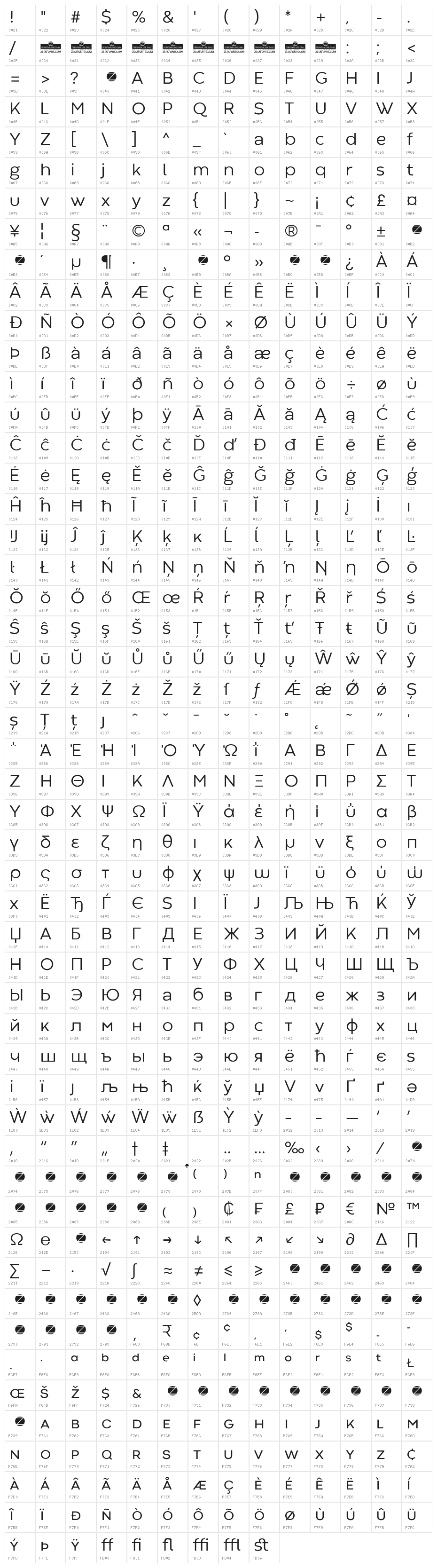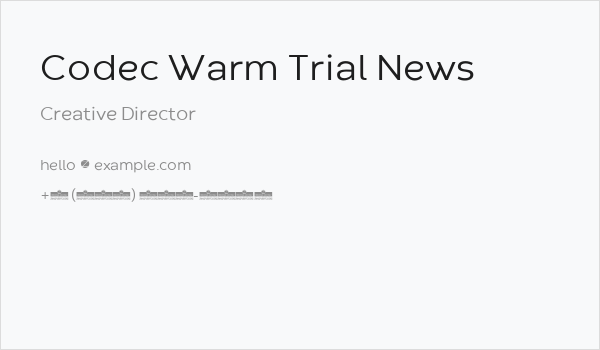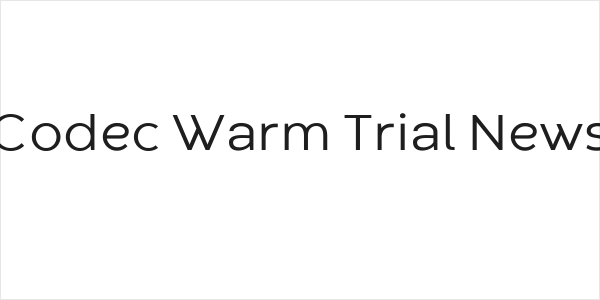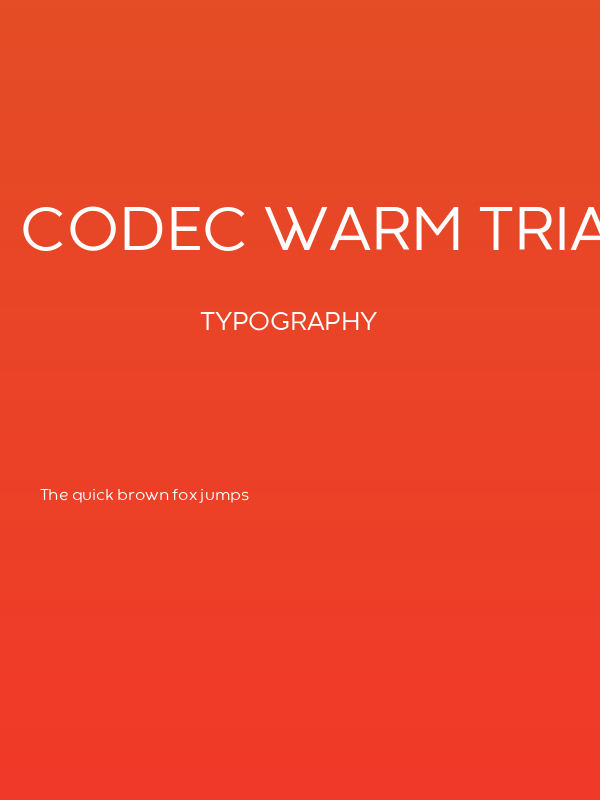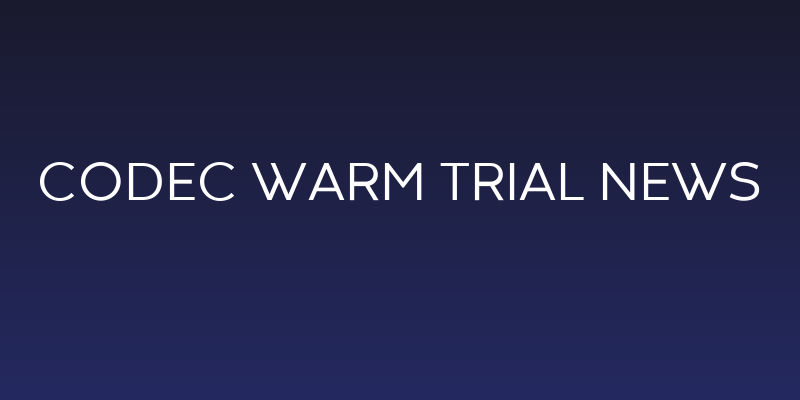
Codec Warm Trial News Font
Codec Warm Trial News Description
This font features a clean and modern sans-serif design with smooth curves and a uniform stroke width. The uppercase and lowercase letters maintain a consistent geometric structure, offering a harmonious and balanced appearance. The numerals are clear and legible, matching the overall aesthetic of the alphabet. Special characters are well-integrated, ensuring versatility in various applications. The font's simplicity and clarity make it suitable for both digital and print media, providing excellent readability across different sizes.
| Proposed Projects | Ideal for branding, web design, editorial layouts, and corporate materials. |